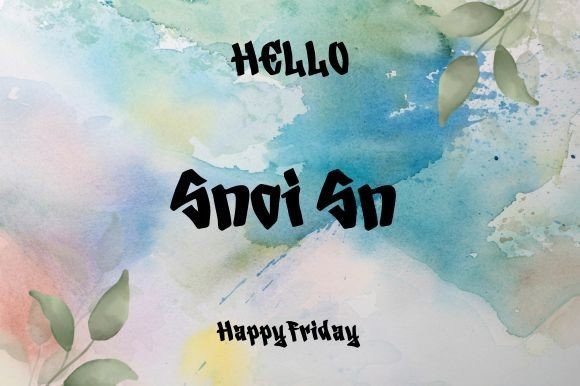
In a world teeming with digital noise, where attention spans are fleeting and impressions last mere seconds, your online presence must command attention and captivate hearts instantly. Introducing Snoi SN, the font that transforms your digital creations into irresistible magnets, drawing eyes and captivating souls with its playful charm and bold personality.
Snoi SN is not just a font; it's an experience. Its meticulously crafted curves and strokes evoke a sense of whimsy and delight, infusing your words with an irresistible allure. Whether you're crafting social media posts, designing eye-catching logos, or creating stunning websites, Snoi SN is your secret weapon to cut through the clutter and leave a lasting impression.
Picture this: you're scrolling through your social media feed, bombarded by an endless stream of content vying for your attention. Suddenly, a post catches your eye, its text dancing across the screen in an enchanting symphony of loops and twirls. It's Snoi SN, and it instantly captivates you, drawing you in like a moth to a flame. The words resonate with a playful energy, inviting you to explore further, to discover the story behind the post.
Or imagine you're designing a new logo for your business. You want something unique, something that reflects the vibrant spirit of your brand. You experiment with different fonts, but none seem to capture the essence of your company. Then, you stumble upon Snoi SN. Its bold strokes and playful curves perfectly embody the energy and creativity that drive your business. You know instantly that you've found the perfect match, a font that will make your logo unforgettable.
With Snoi SN, your website will transform into a captivating oasis, a visual masterpiece that welcomes visitors with open arms. Its playful charm will guide them through your content, keeping them engaged and eager to discover more. They'll be captivated by the unique personality of your website, an experience they won't find anywhere else.
Snoi SN is more than just a font; it's a gateway to a world of creativity and self-expression. It's the perfect choice for those who dare to stand out, to embrace their individuality, and to leave an indelible mark on the digital landscape. Embrace Snoi SN today and watch as your online presence blossoms into a vibrant and captivating masterpiece.